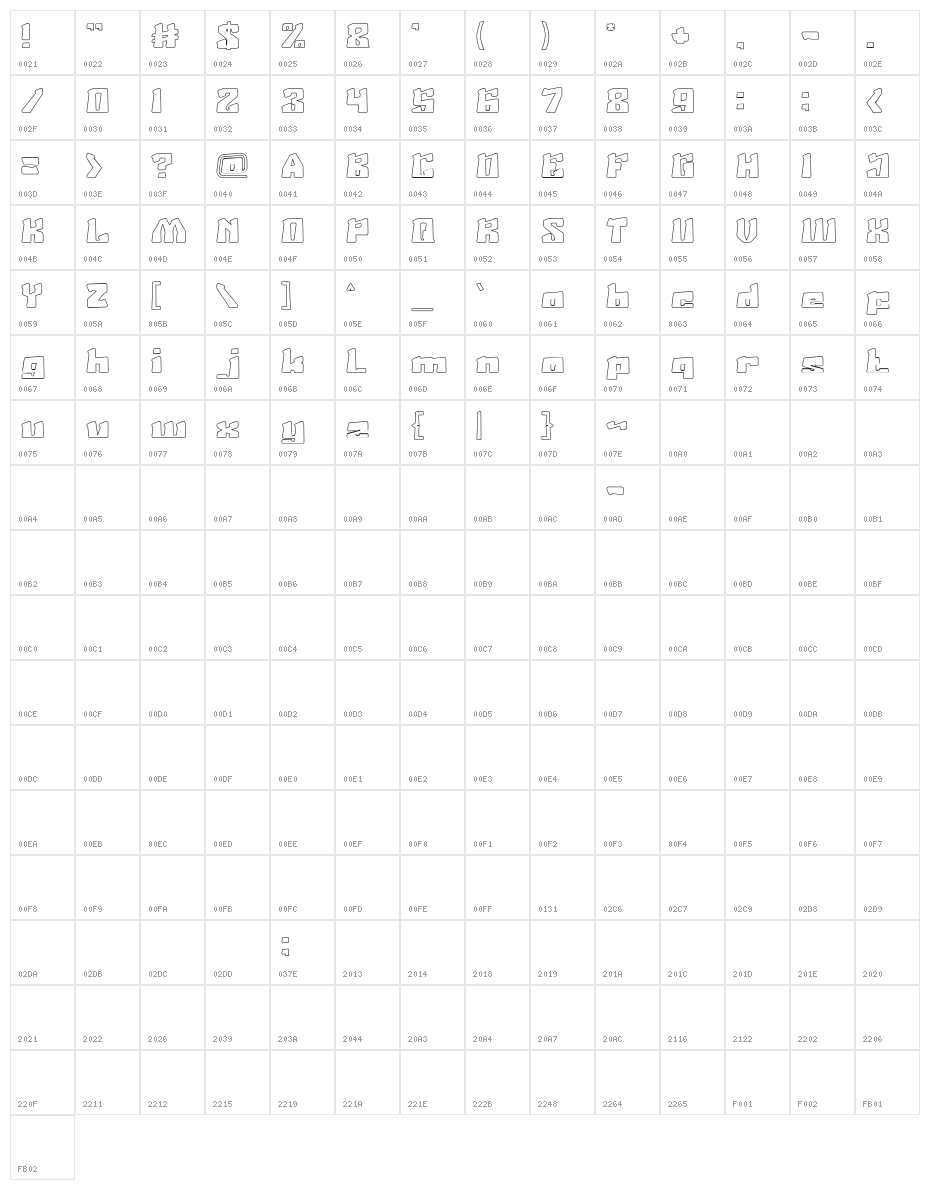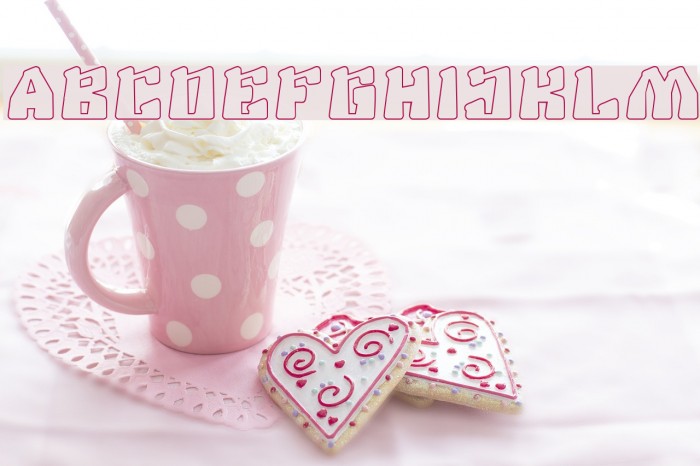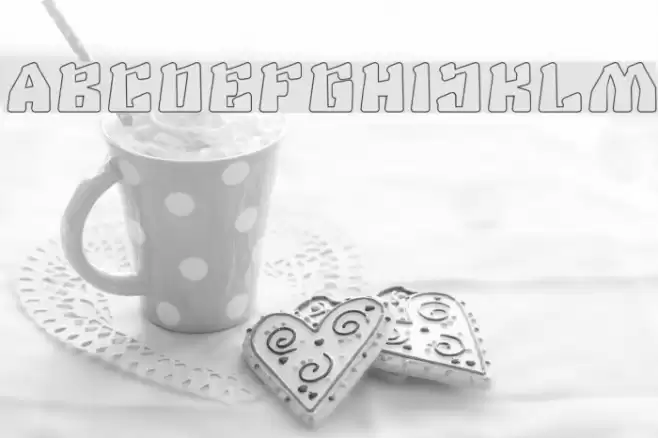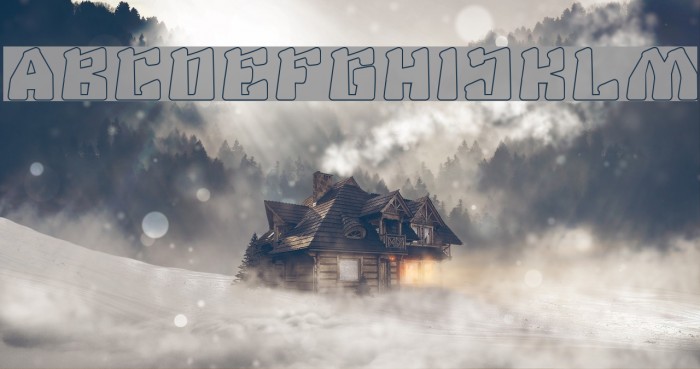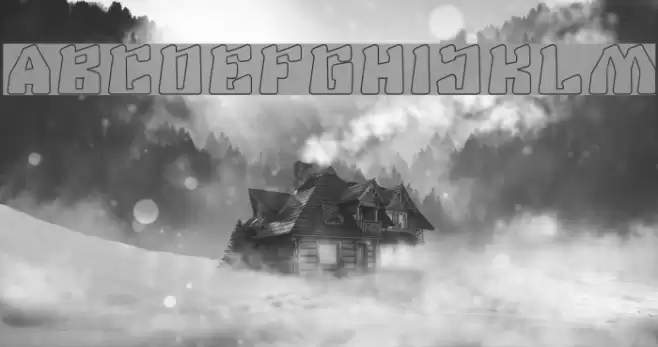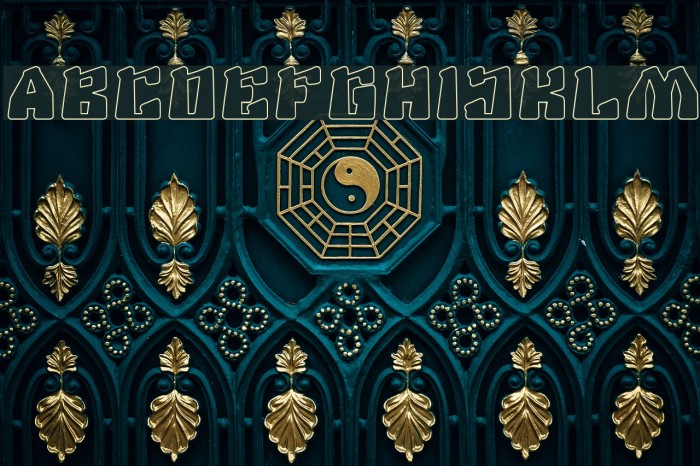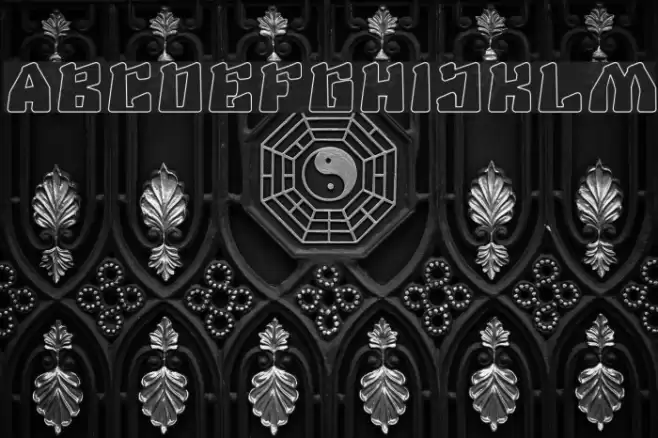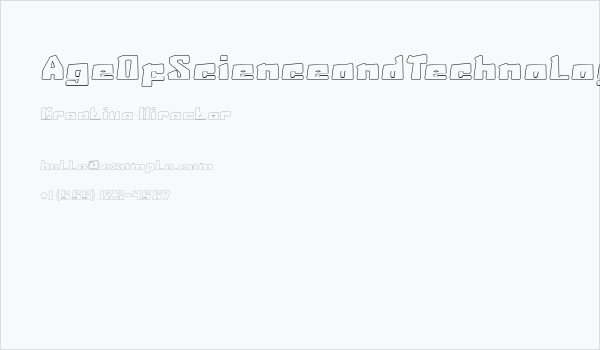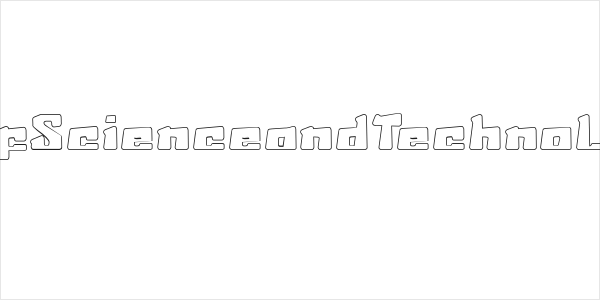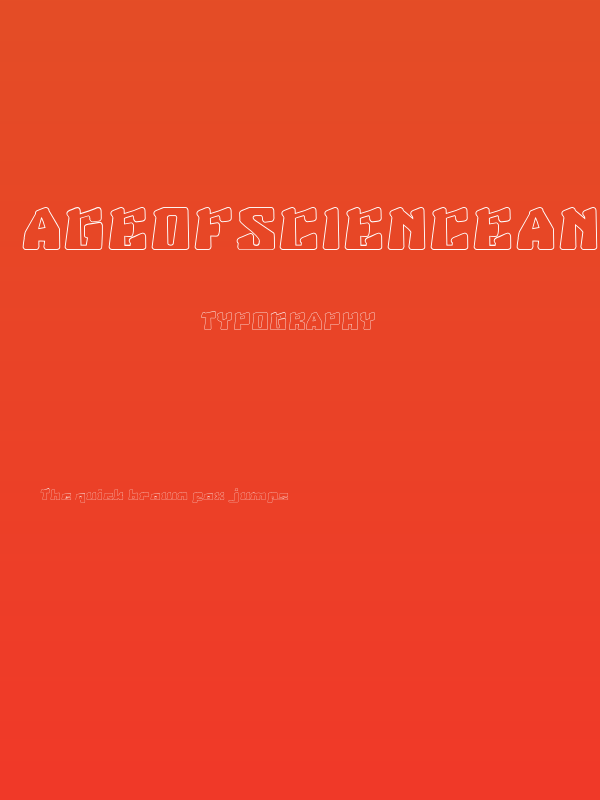
AgeOfScienceandTechnologyH Font
AgeOfScienceandTechnologyH Description
This font features a bold, futuristic design with a distinct outline style that gives each character a three-dimensional appearance. The uppercase and lowercase letters maintain a consistent geometric structure, with angular edges and a blocky form. Numbers and special characters follow the same design principles, ensuring uniformity across the entire set. The font's unique style is reminiscent of digital or sci-fi themes, making it ideal for projects that require a modern and technological aesthetic. The characters are evenly spaced, providing a balanced and readable text flow.
| Proposed Projects | Ideal for sci-fi themed posters, video game titles, technology branding, and digital media. |